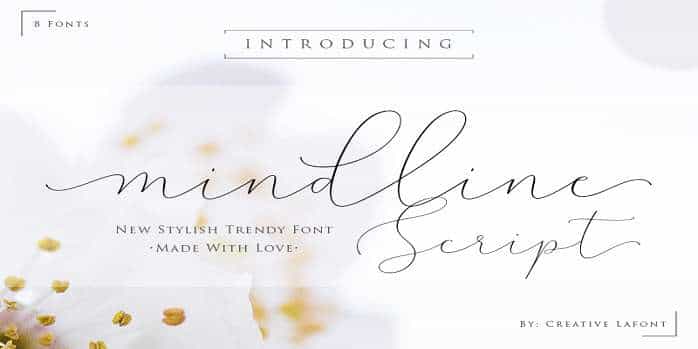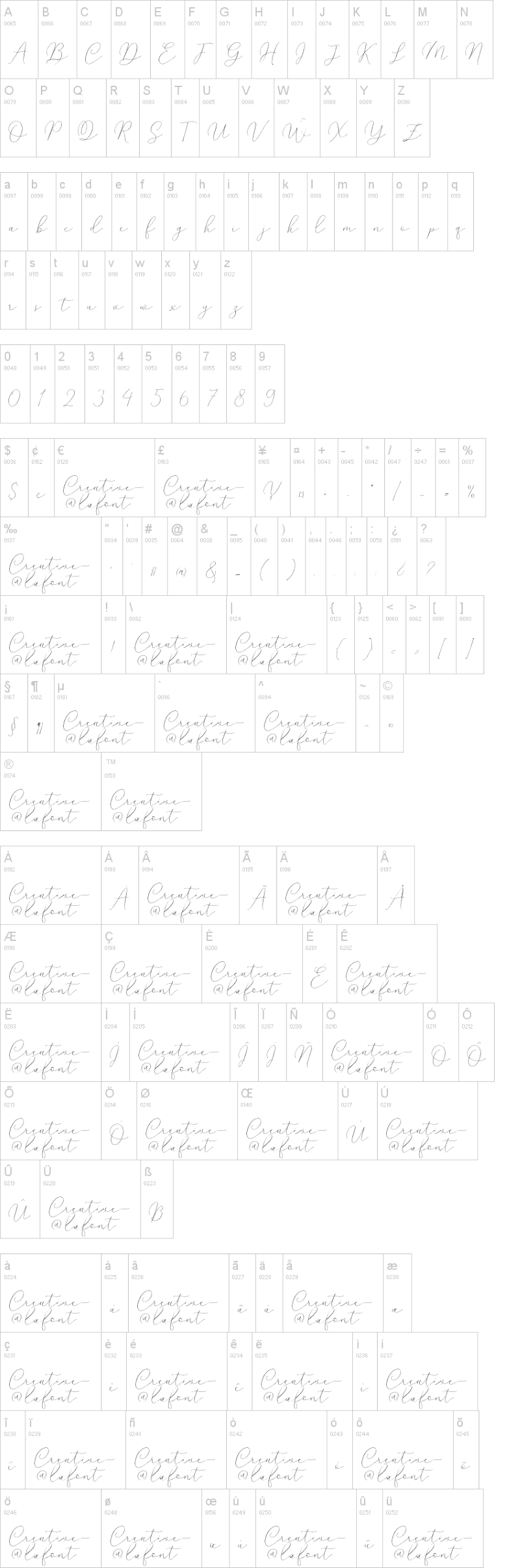
Present my new font Mindline Script is a versatile calligraphy modern font with modern and elegant touches. This is ideal for wedding, event, invitation, escort card, table number, header menus, display, logos, slider blog, custom address, stamps, packaging, greeting card, etc.